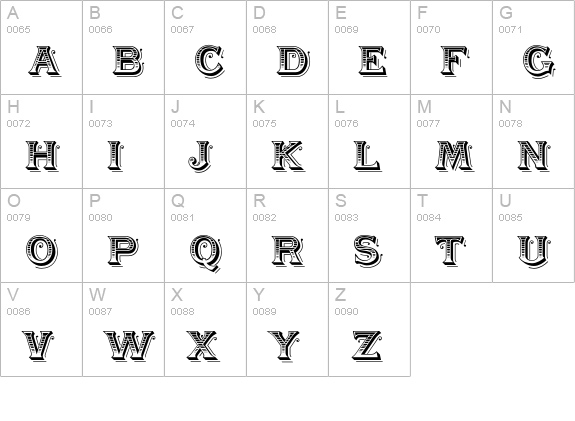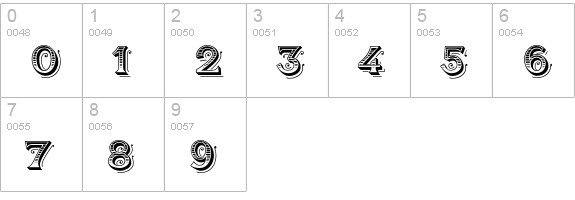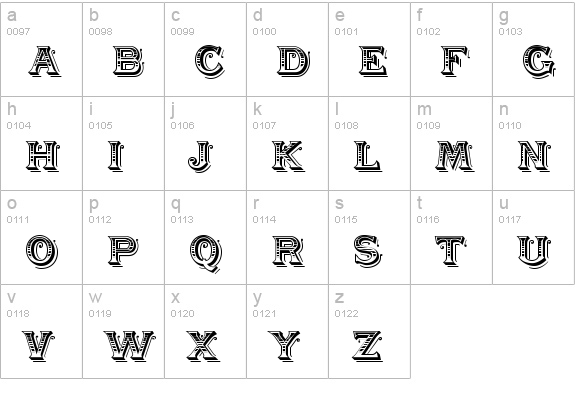
Angelface Font Details
Angelface font is a whimsical and elegant typeface that exudes charm and sophistication. With its delicate curves and graceful strokes, Angelface is perfect for adding a touch of grace to any design project. Whether you're creating wedding invitations, branding materials, or simply looking to elevate your personal projects, Angelface font will surely captivate your audience. The best part? Angelface font is available for free download at FontsMarket.com. Simply visit the website to access this beautiful font and unleash your creativity without any cost. Embrace the beauty of Angelface font and bring a touch of elegance to your next project.